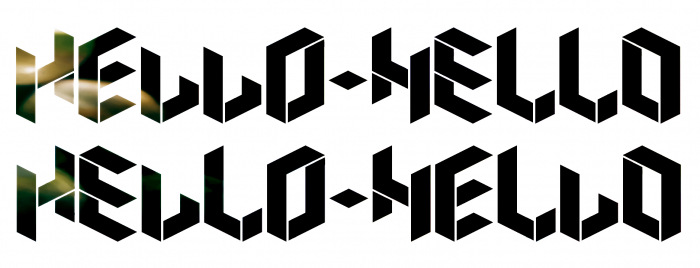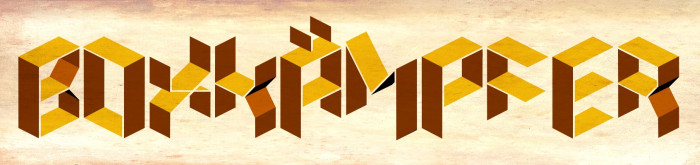
Two-in-One font again (maybe 3in1?). You can write only with the uppercase, write only with the lowercase or you can mix both alternating them in a single zigzagging word: HELLO, hello, HeLlO, hElLo. Your choice, your fun.
very creative design, quite a nice zigzagability
I have a feeling there'll be 2 versions of this (mainly for numbers and symbols facing the other direction)
when each successive letter in a word is turned the other way (zigzagability), it looks so cool!
Wow, this is really good. Those thin white lines are so effective. Excellent samples too!
@elmoyenique - A wonderful orthogonal design, where difficult angles look natural (like M N W V X Y...).  Congratulations on the Top Pick; it's well deserved.  :^)